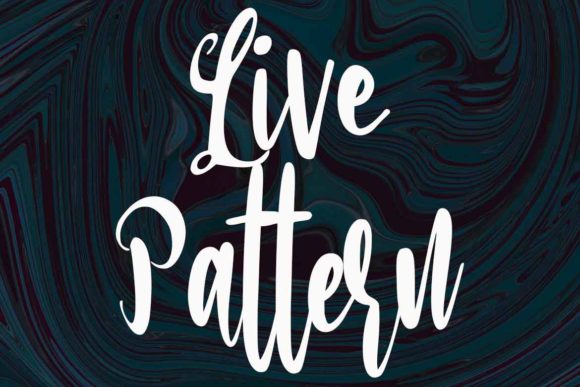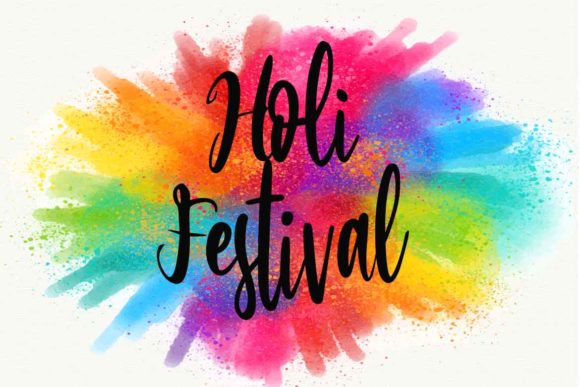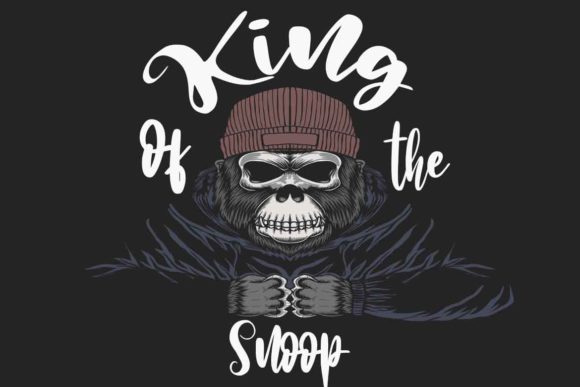
Introduction to Snoop City Font
Have you ever found yourself scribbling down ideas on a sticky note, only to realize that your handwriting has become the perfect inspiration for a design project? This is exactly what happened to us when we stumbled upon the Snoop City Font. Its elegant touch and flowing handwritten style made us fall in love, and we knew we had to share it with the world.
As designers, we’re always on the lookout for high-quality design resources that can elevate our creative projects. The Snoop City Font is one such gem that can add a touch of sophistication to any design. With its transparent background and free download option, it’s the perfect addition to any design toolbox. Whether you’re working on a branding project or creating a social media graphic, this font is sure to make your design stand out.
- High-quality font design for creative projects, ideal for designers seeking a unique design resource.
- Transparent background option for seamless integration with various design elements.
- Includes a range of stylish and modern characters, perfect for adding a touch of sophistication to any design.
- Includes a comprehensive character set, covering Latin, Cyrillic, and Greek alphabets, making it suitable for diverse design projects.
Honest Review: Snoop City Font
As a designer, I’m always on the lookout for high-quality design resources to elevate my creative projects. The Snoop City Font is one such resource that caught my attention. This font is a great addition to any designer’s toolkit, and here’s why:
- ✨ Unique and stylish design: The Snoop City Font has a distinctive look that’s perfect for adding a touch of personality to your designs.
- ✨ Transparent background: This feature allows for seamless integration with other design elements, making it a great choice for logos, icons, and graphics.
While the Snoop City Font excels in many areas, there are a few limitations to consider:
- ⚠️ Limited font weights: The font only comes in a few weights, which may limit its versatility in certain design contexts.
- ⚠️ Not suitable for body text: Due to its unique design, the Snoop City Font may not be the best choice for large blocks of body text.
Overall, I’m impressed with the Snoop City Font and its potential to elevate creative projects. While it has some limitations, its unique design and free download make it a valuable resource for designers looking to add some personality to their work.
Snoop City Font
The Snoop City Font is a high-quality, free download design resource perfect for your next creative project. With its unique style and transparent background, this font is sure to add a touch of sophistication to your designs.
To get the most out of the Snoop City Font, try using it in combination with other design elements, such as graphics and images, to create a cohesive and visually appealing design.
The Snoop City Font is perfect for a variety of creative projects, including:
- Brochures and flyers